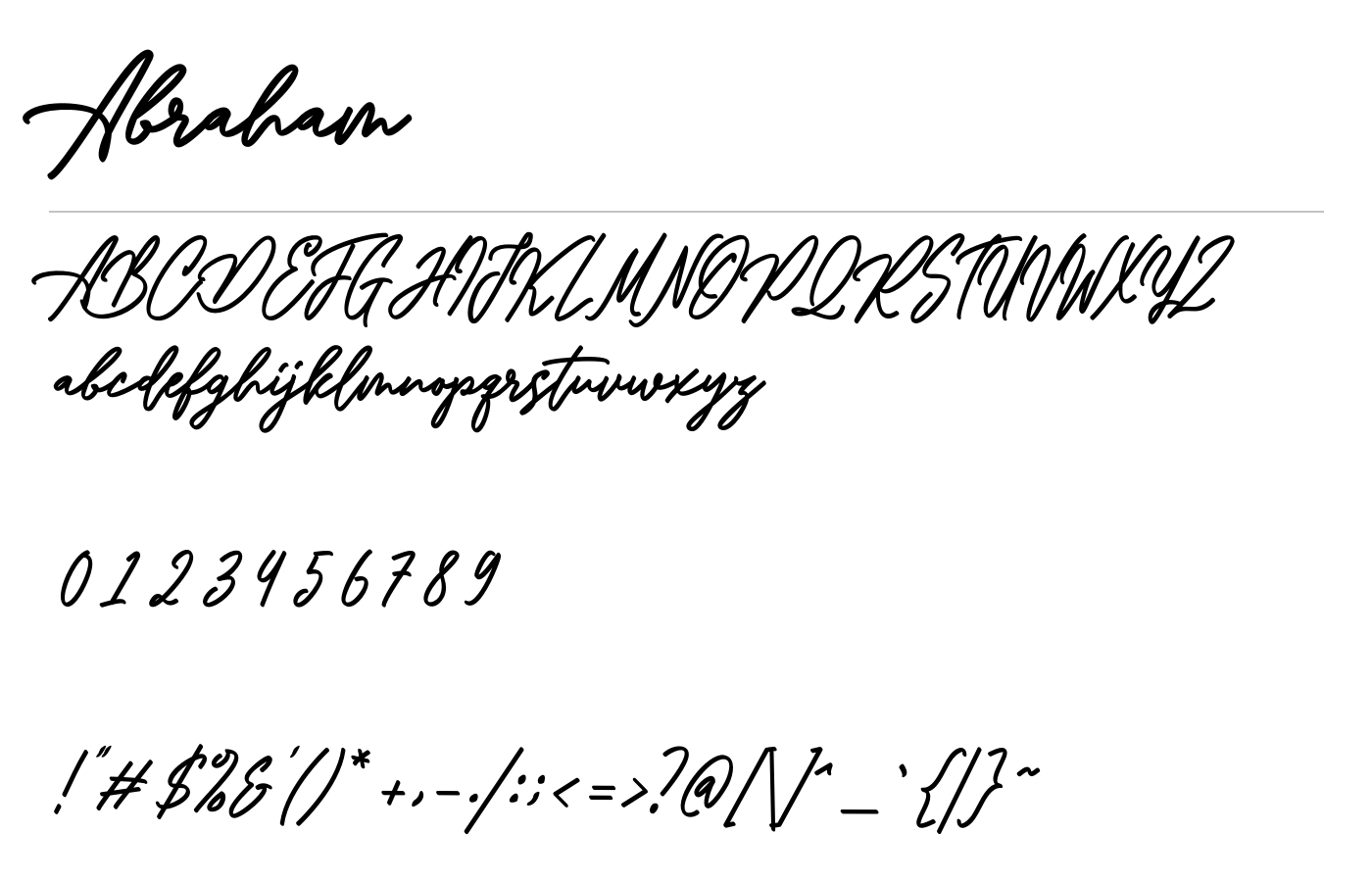
Abraham is a stylish handwritten script font with a lively and elegant flair, featuring smooth, flowing strokes that create a natural, personal touch. Its moderate weight and narrow proportions make it ideal for adding a refined, friendly feel to branding, invitations, and creative projects that seek a sophisticated yet approachable vibe. This font works beautifully in logos, headlines, and decorative text where a warm, handwritten look is desired.
Abraham Font
About Abraham Font